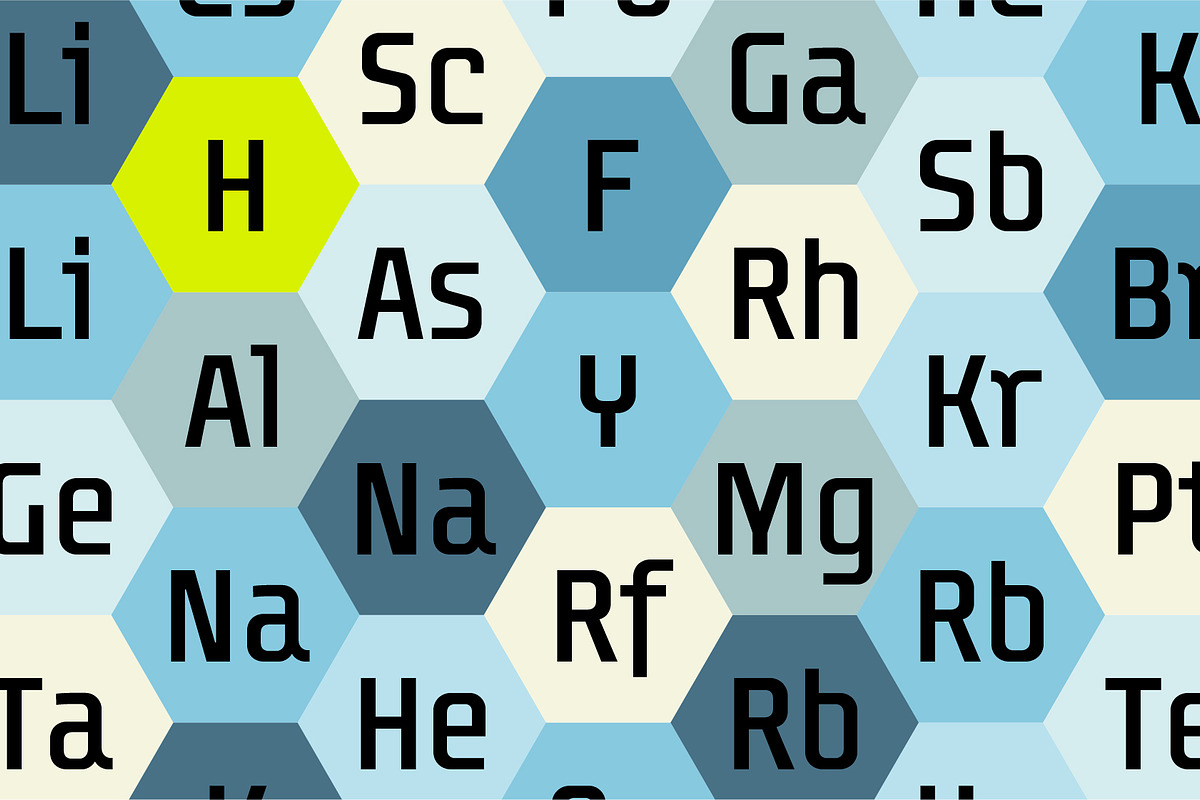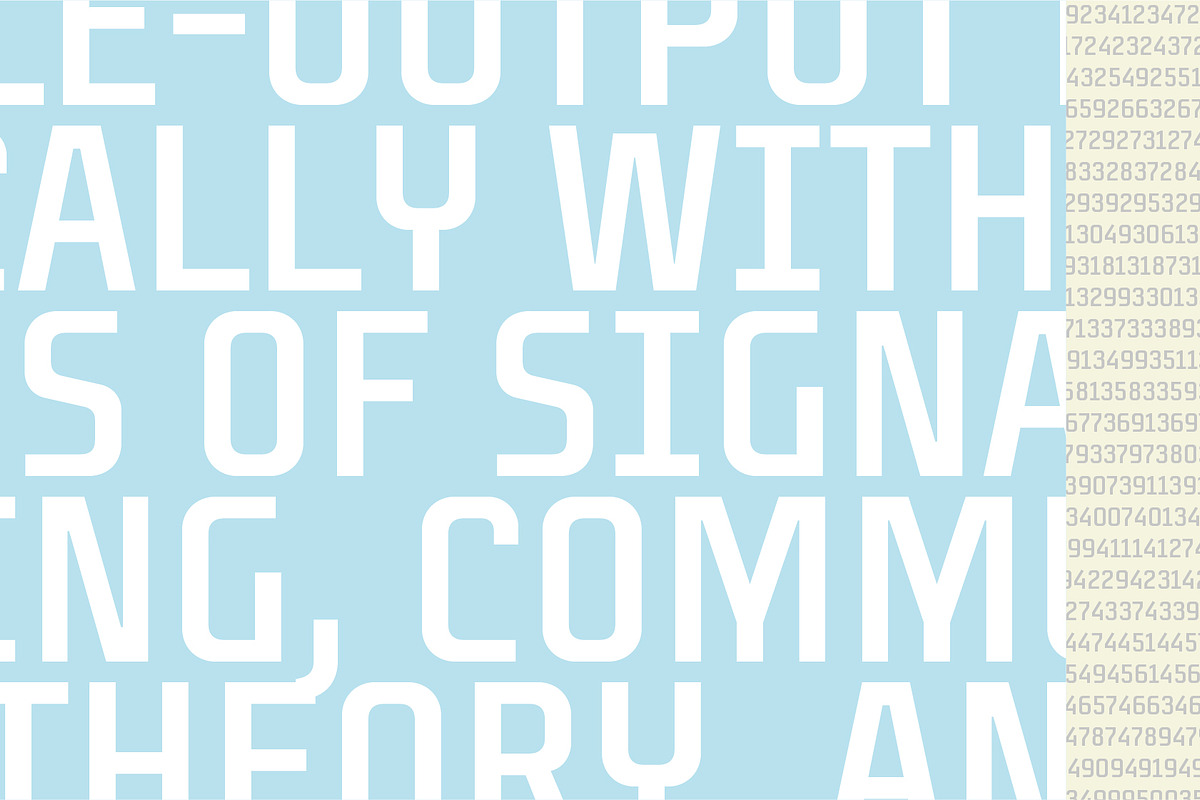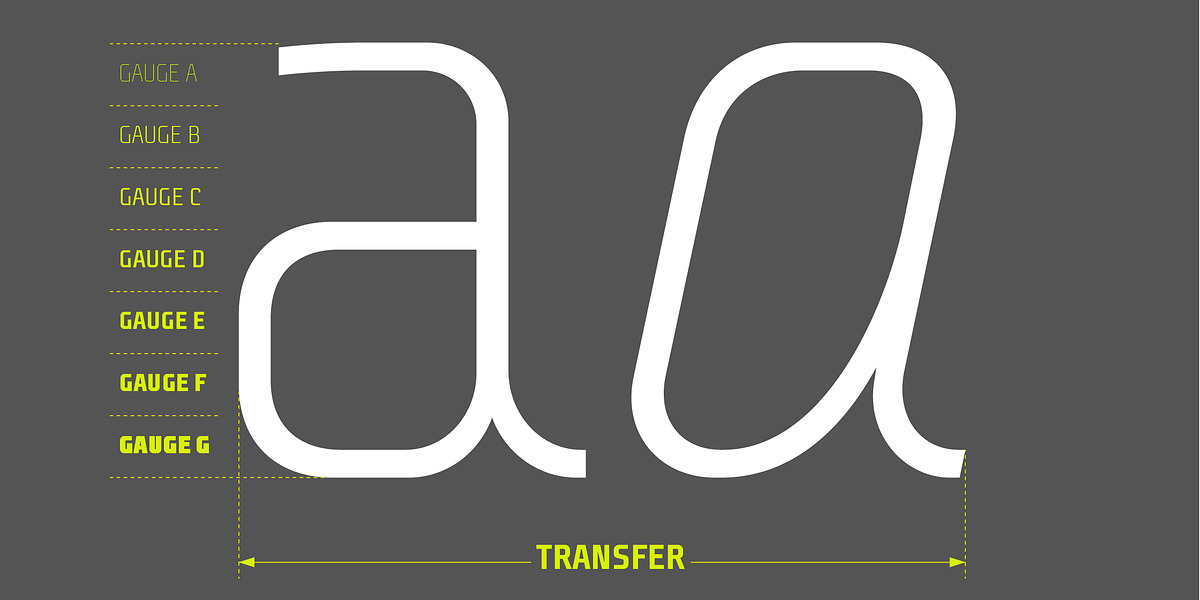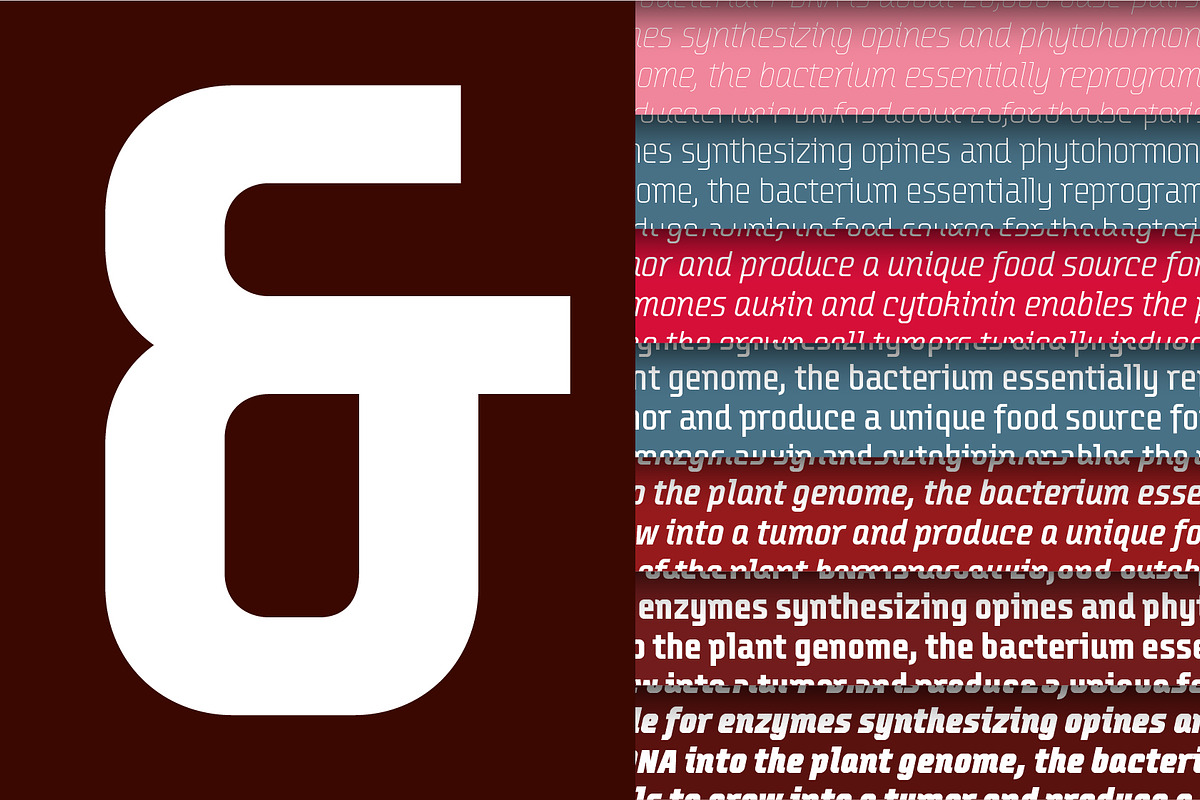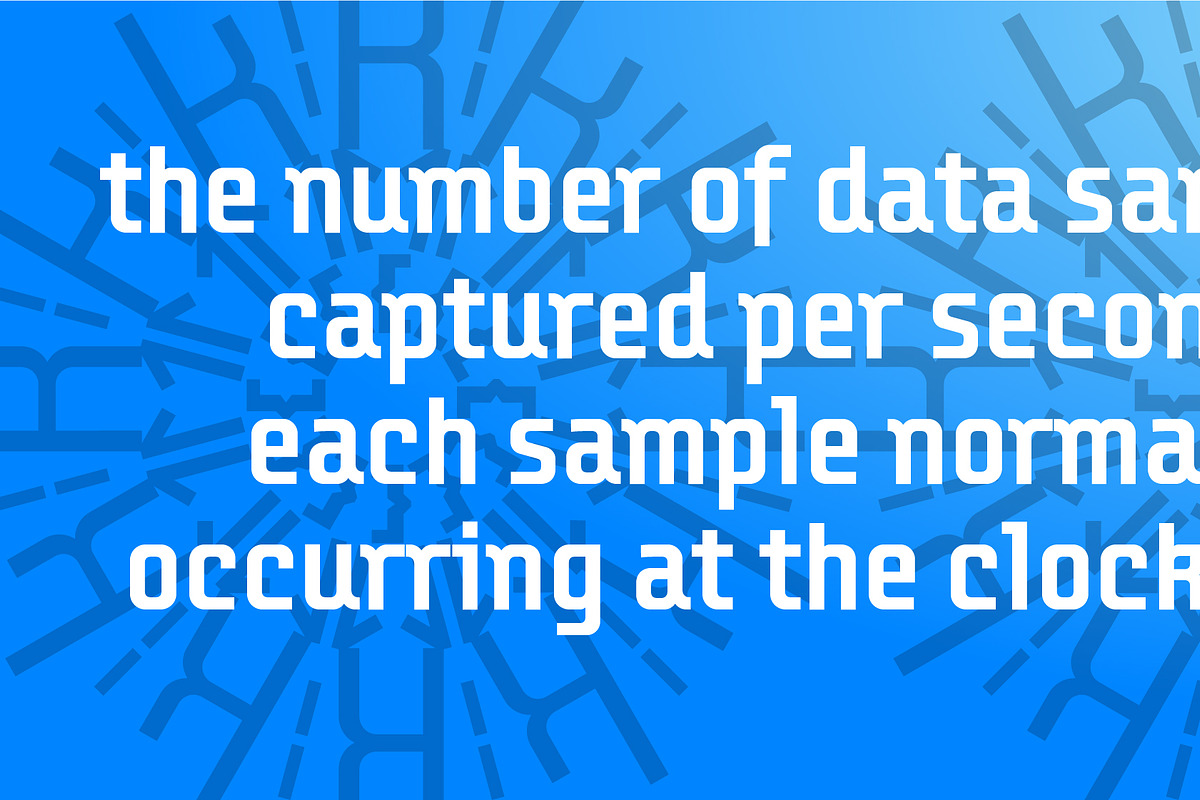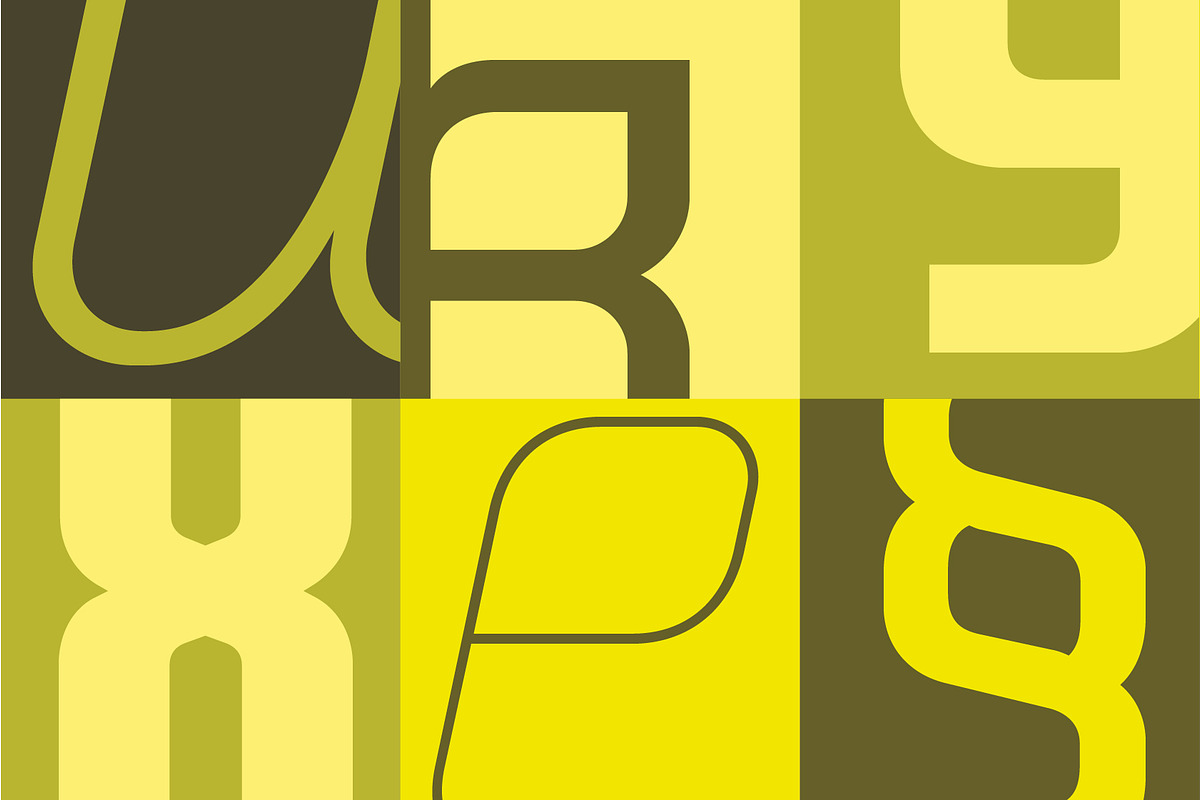
Transfer
Transfer is an elegant geometric sans serif font with a monolinear style. Its clean lines and high contrast give any text a modern, tech-inspired feel. The font comes in seven weights, allowing for versatile application across various design projects.